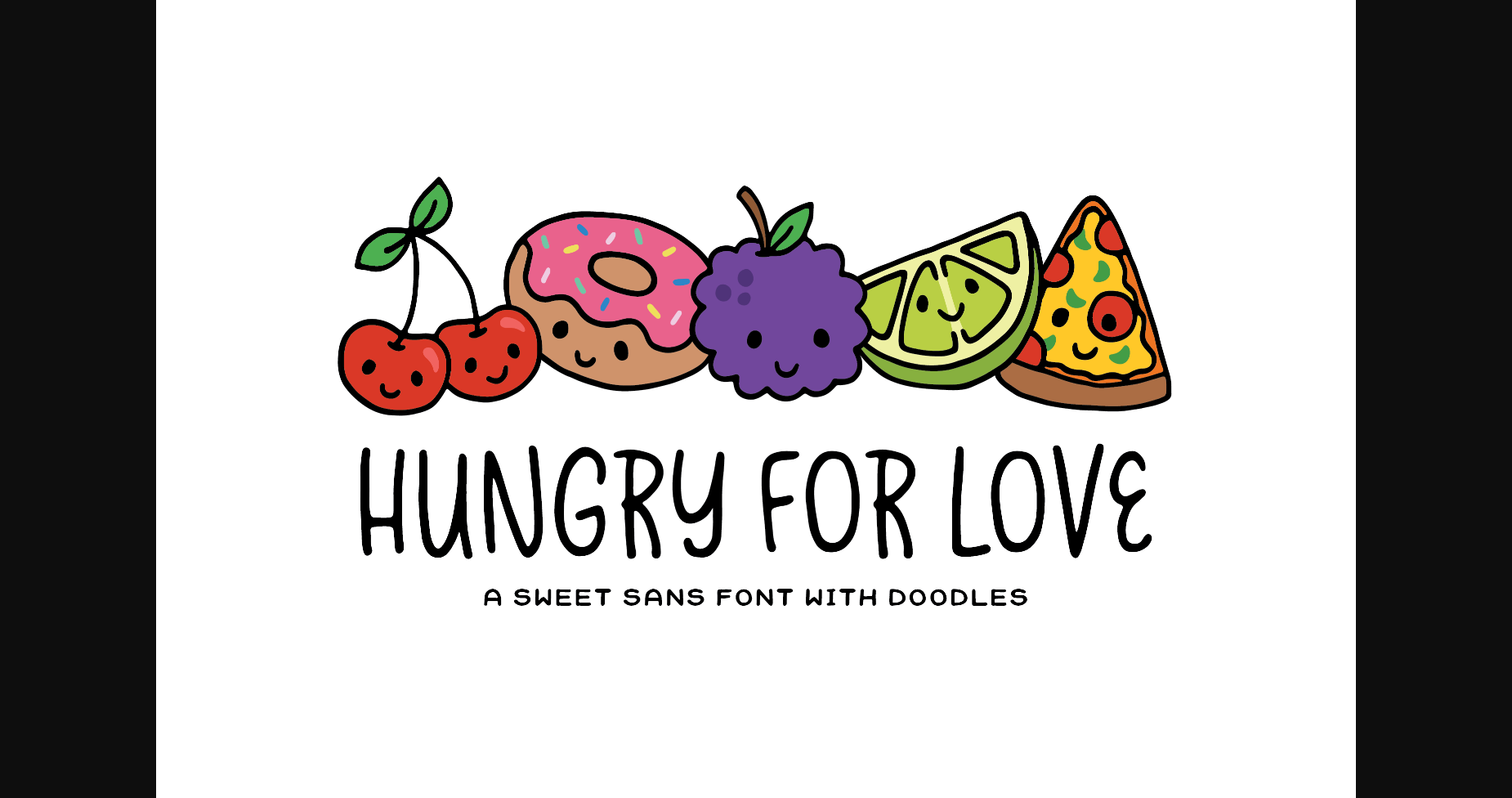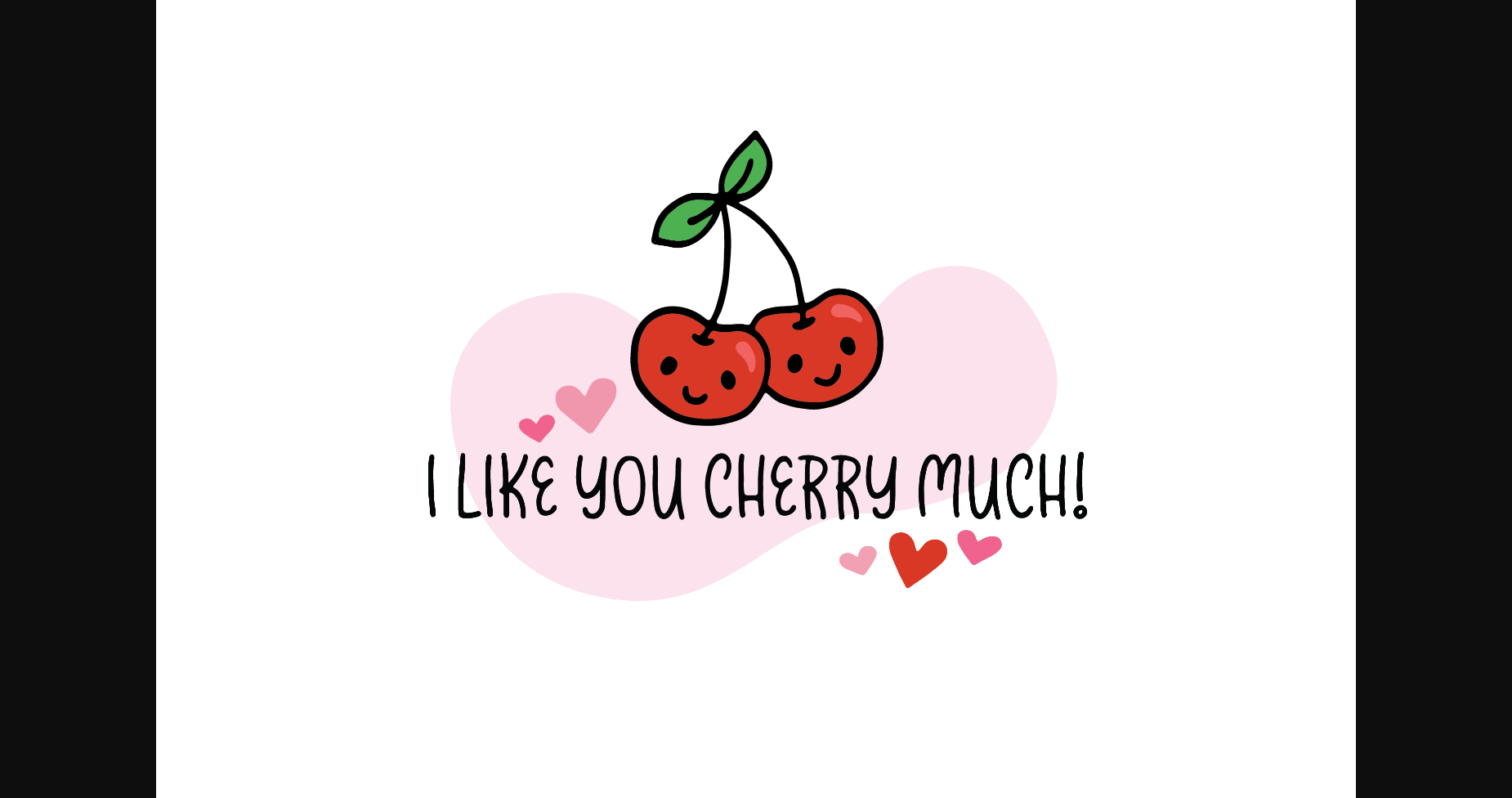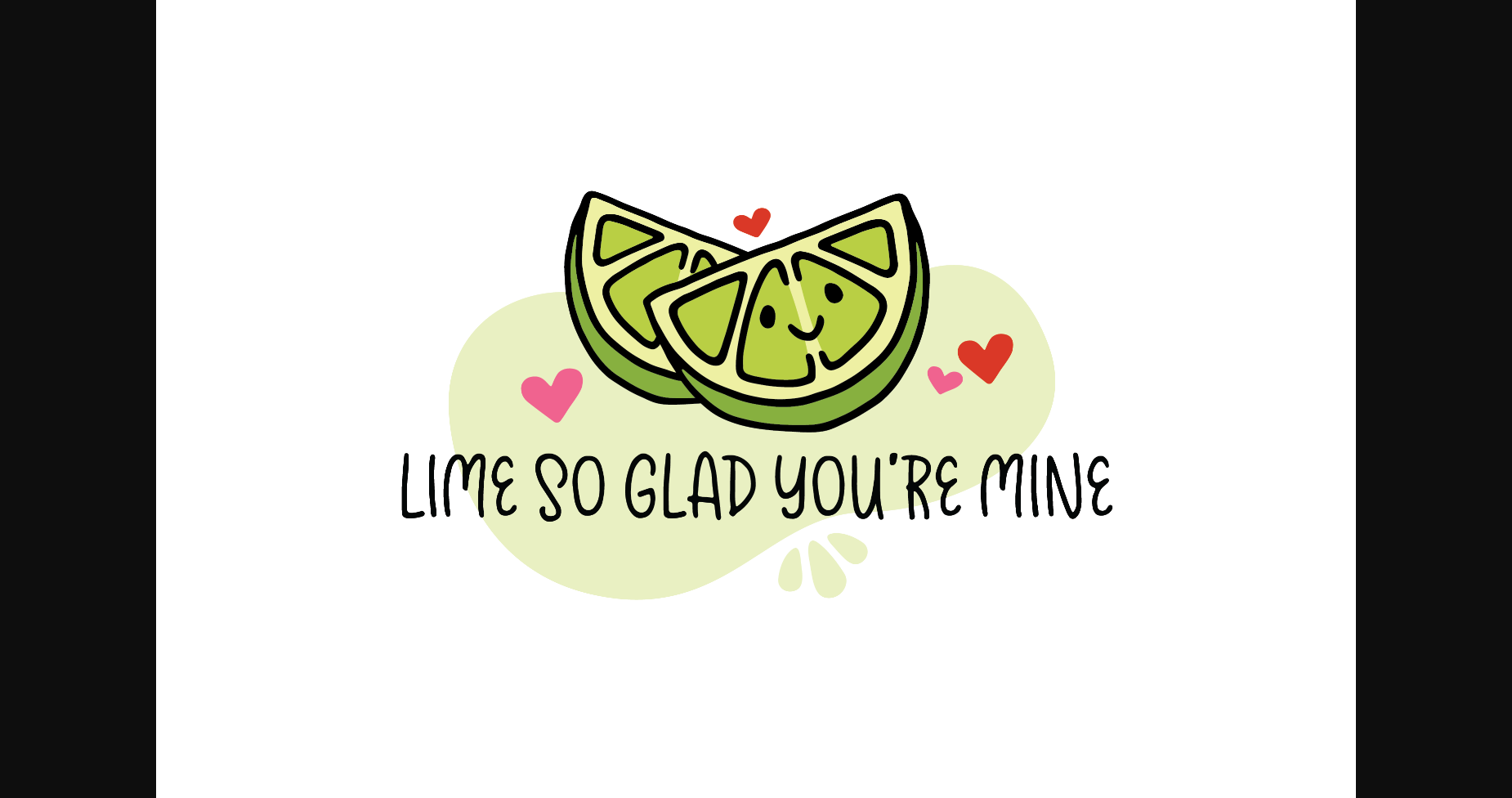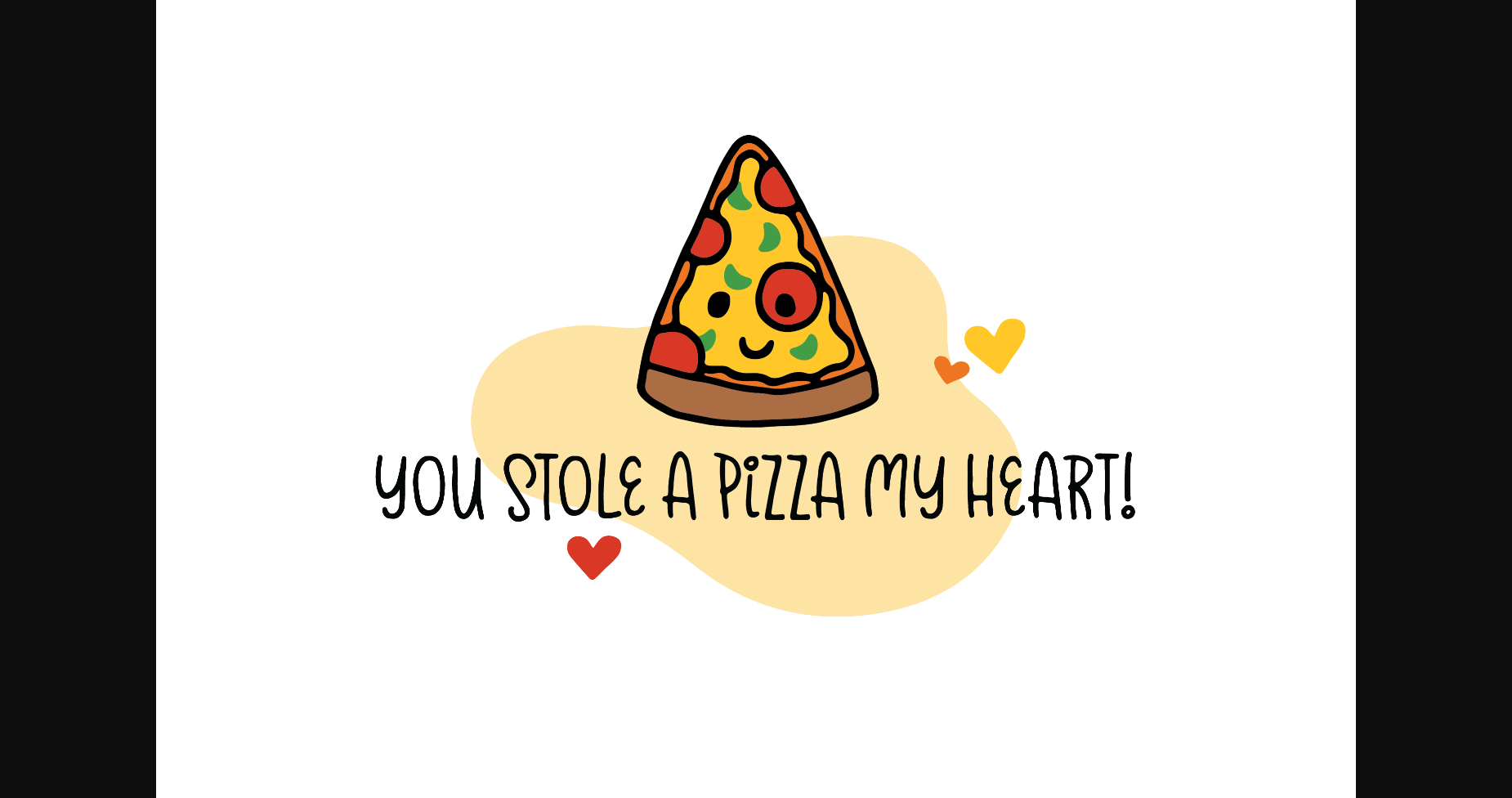
About Hungry for Love Font
Introducing: Hungry for Love Font and Doodle Pack! Everything you need to make the cutest little Valentine cards or tags! Comes with Hungry for Love font and a pack of doodles in .ai and .png format. There are even 8 pre-designed Valentines to kick off your creativity!